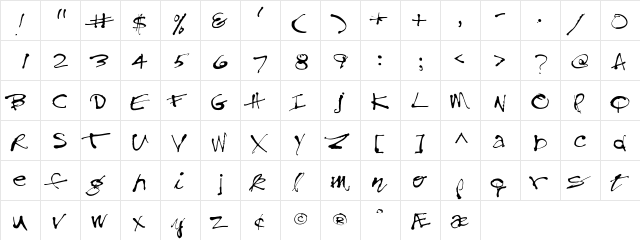
LovelyHand Regular
Design Context for LovelyHand Typeface
LovelyHand brings a calligraphic fluidity to the page — its connecting strokes and expressive curves give it an unmistakably human quality.
Font Pairing: Combine LovelyHand with a simple geometric sans for maximum contrast — the tension between flowing curves and clean structure is a classic typographic pairing.
Pro Tip: Pair LovelyHand with a clean sans-serif for supporting text. The contrast between fluid script and geometric structure creates an elegant typographic hierarchy.